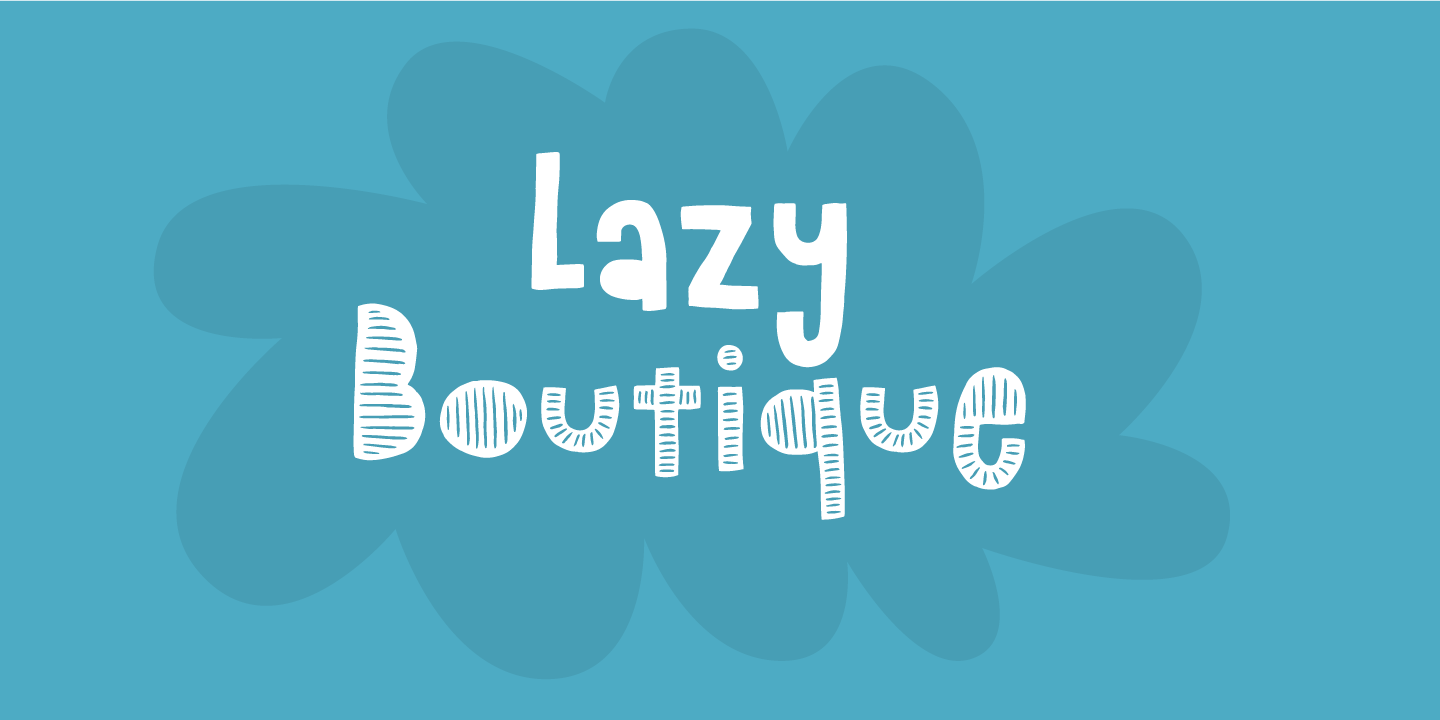
Looking for a playful yet elegant font that captures a relaxed and stylish vibe? Lazy Boutique Font Free Download is perfect for boutique branding, fashion lookbooks, lifestyle blogs, and handmade product packaging. With its soft curves and whimsical letterforms, this typeface brings a unique blend of charm and sophistication to your designs.
Whether you're designing for a small business, a boho-inspired brand, or a creative campaign, Lazy Boutique Font Free Download helps your message feel friendly, refined, and totally on-trend.